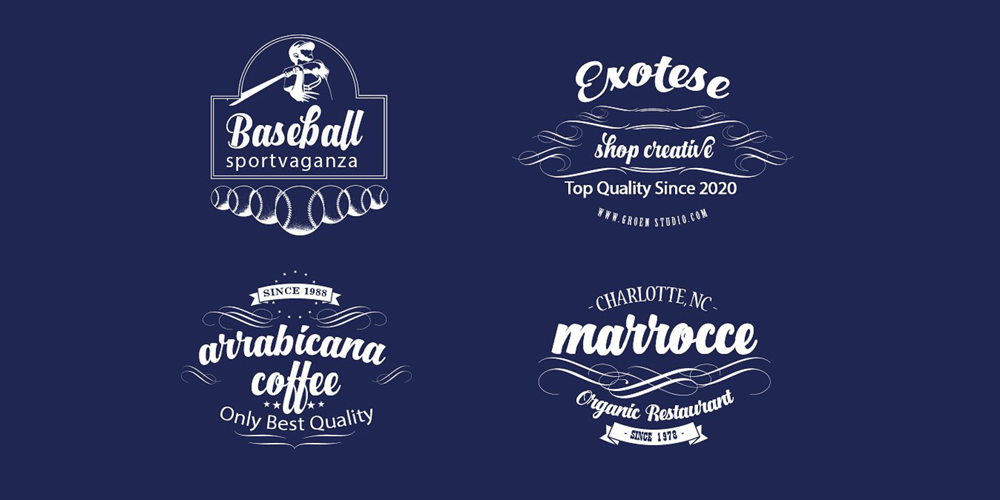
Standly
Standly font
Standly Font Family was designed by Sai Poel and published by Groen Studio. Standly contains 1 styles and family package options. Standly is a bold brush script that is beautiful and unique, it is a model of a calligraphy writing style. Font features included: – Contextual Alternates – Standard ligatures – Discretionary ligatures – Stylistic Alternates – Stylistic sets Font files included: – Standly OTF Languages supported: Breton, Catalan, Czech, Danish, Estonian,French, German, Hungarian, Icelandic, Italian, Romanian, Scottish Gaelic, Slovak, Latvian, Lithuanian, Norwegian, English, Finnish, Polish, Portuguese, Slovenian, Spanish, Swedish, Turkish, Welsh. Basically, all european languages that are based on latin alphabet Can be used for various purposes.such as headings, logos, wedding invitation, t-shirt, letterhead, signage, lable, news, posters, badges etc. To enable the OpenType Stylistic alternates, you need a program that supports OpenType features such as Adobe Illustrator CS, Adobe Indesign & CorelDraw X6-X7.